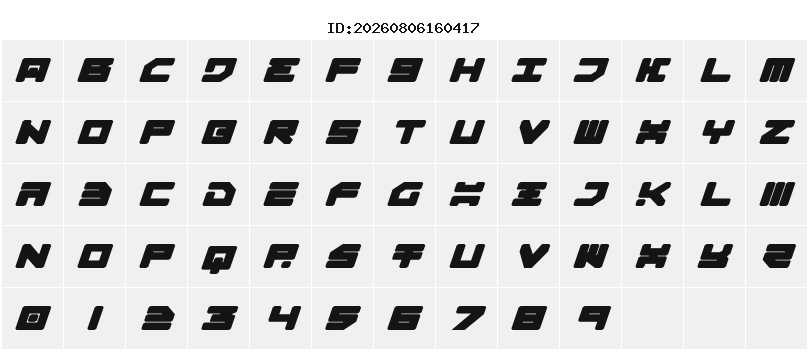
Omega-3 Expanded Italic Preview
• Font Name: Omega-3 Expanded Italic
• Font Style: Expanded Italic
• Full Font Name: Omega-3 Expanded Italic
About Omega-3 Expanded Italic.ttf
Omega-3 Expanded Italic.ttf is a modern, elegant sans-serif font designed for ultimate readability and visual harmony. Perfect for branding, headlines, web design, and print materials.